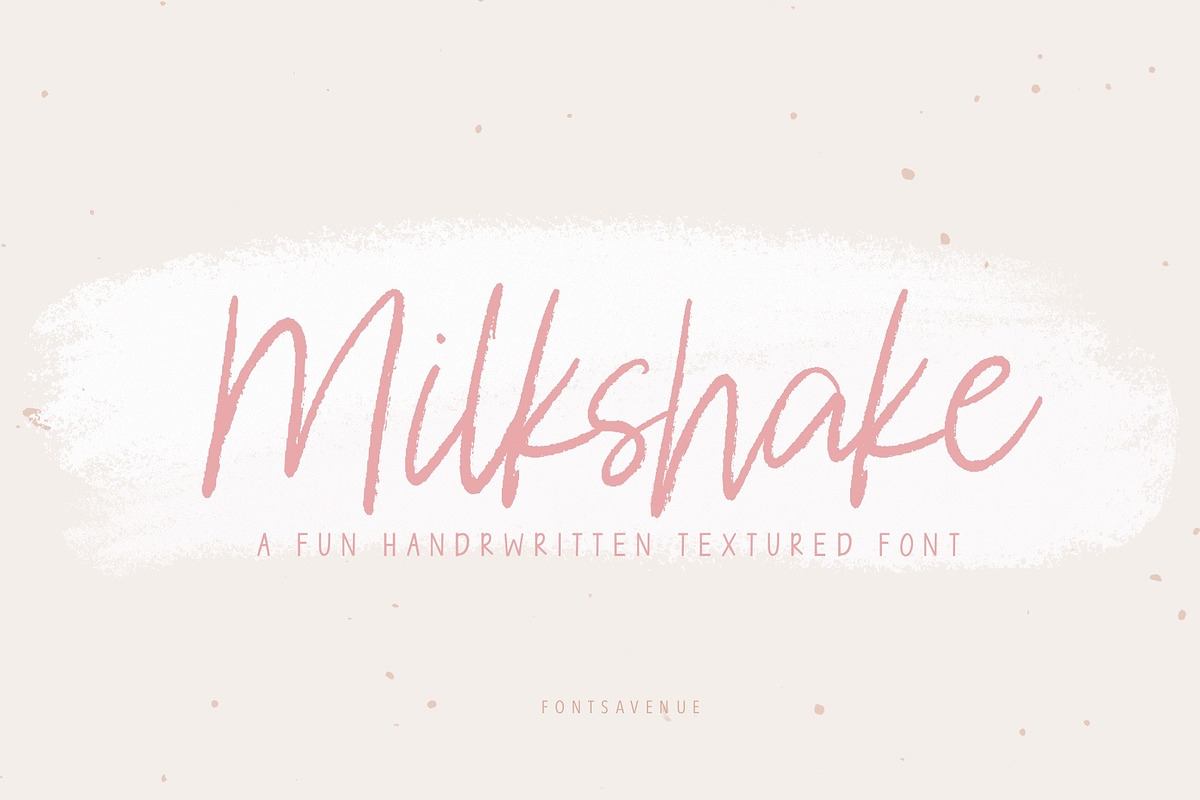
Milkshake | Brush Script Font Free Download is a vibrant and expressive typeface that brings a fun, hand-painted feel to your designs. With its bold strokes and lively, flowing curves, Milkshake is perfect for branding, social media posts, product packaging, invitations, and any design project that needs an energetic, artistic touch.
This font captures the beauty of hand-lettered brush strokes while maintaining readability and a unique flair. Milkshake includes uppercase and lowercase characters, punctuation, multilingual support, and is fully compatible with both Mac and Windows systems.